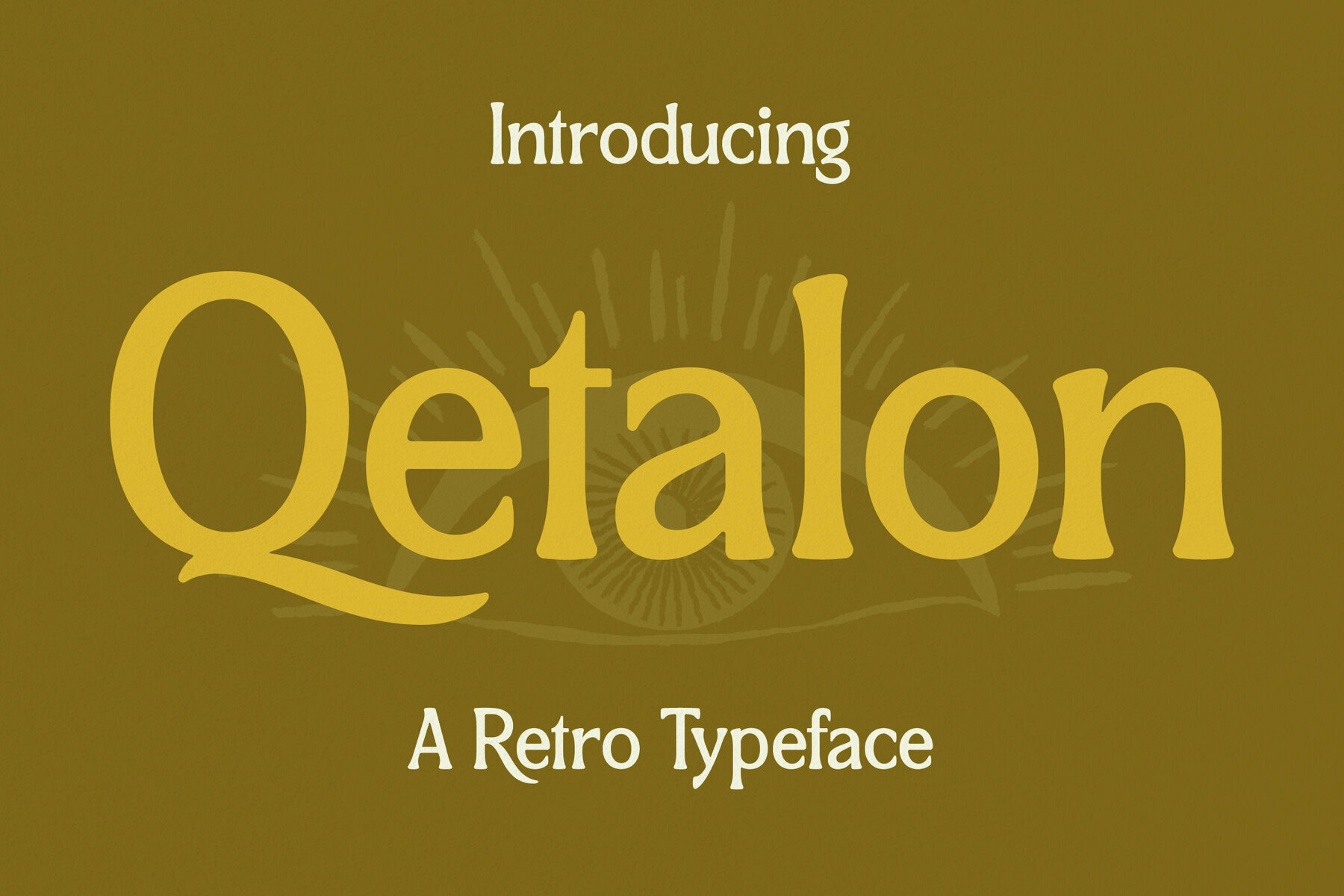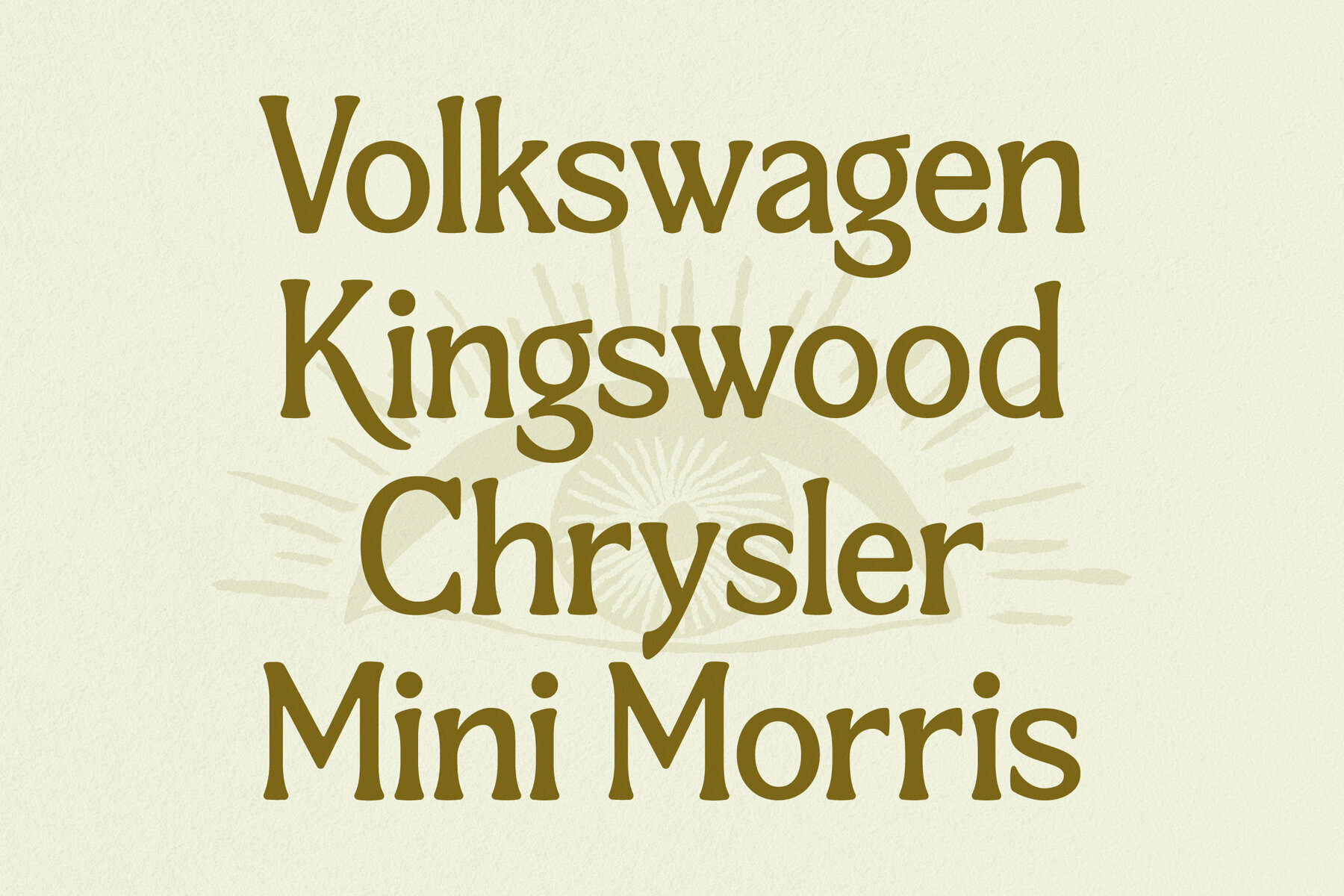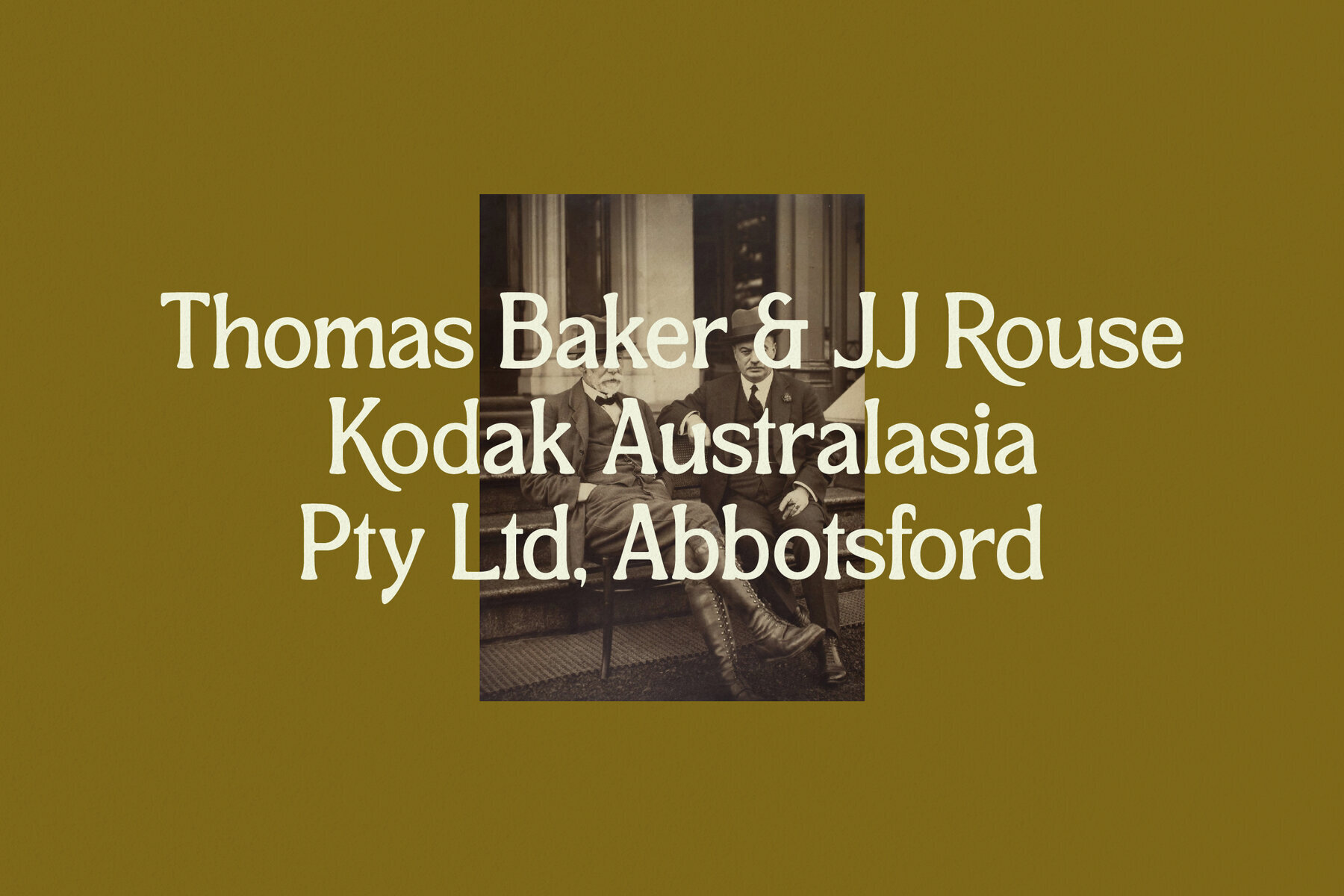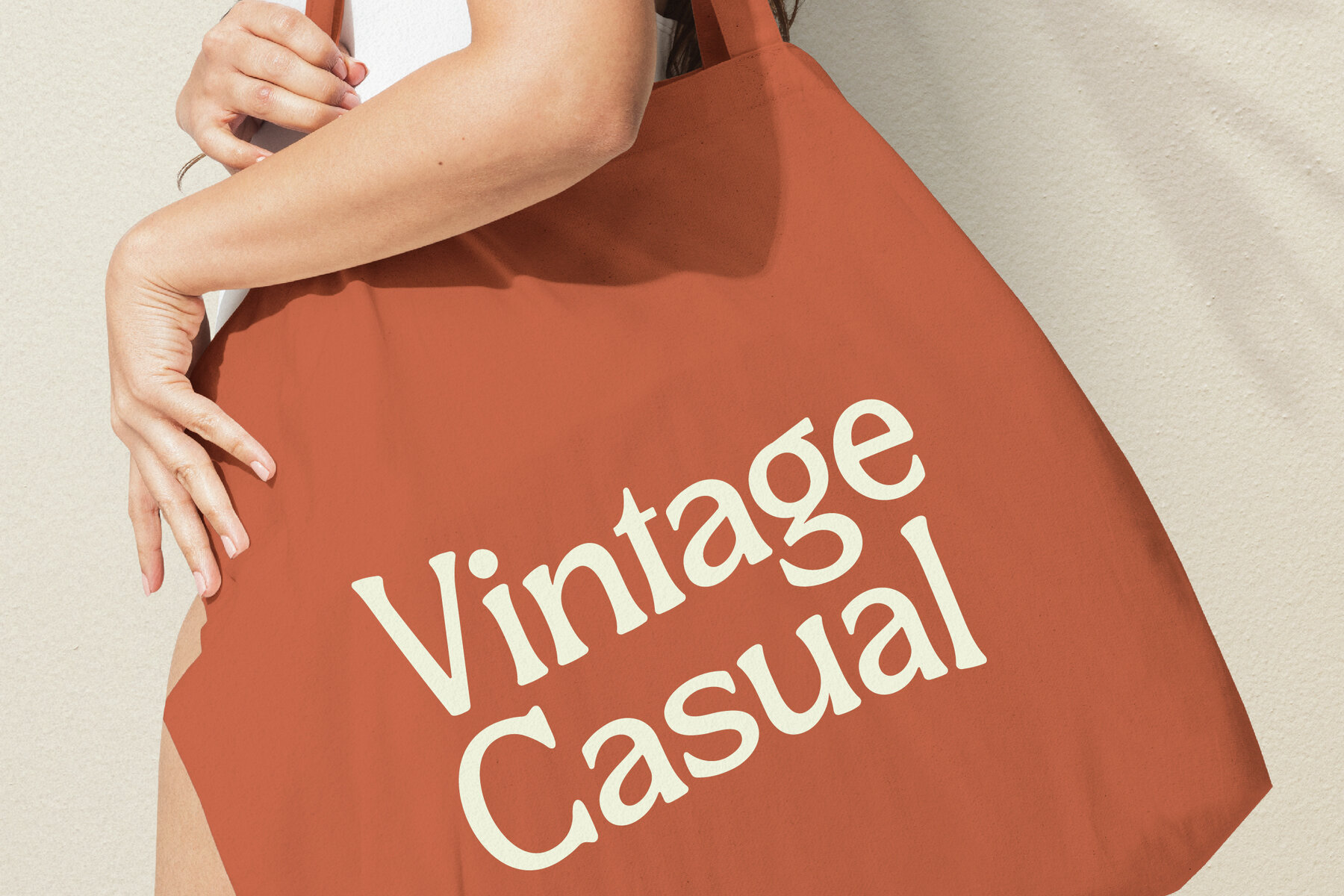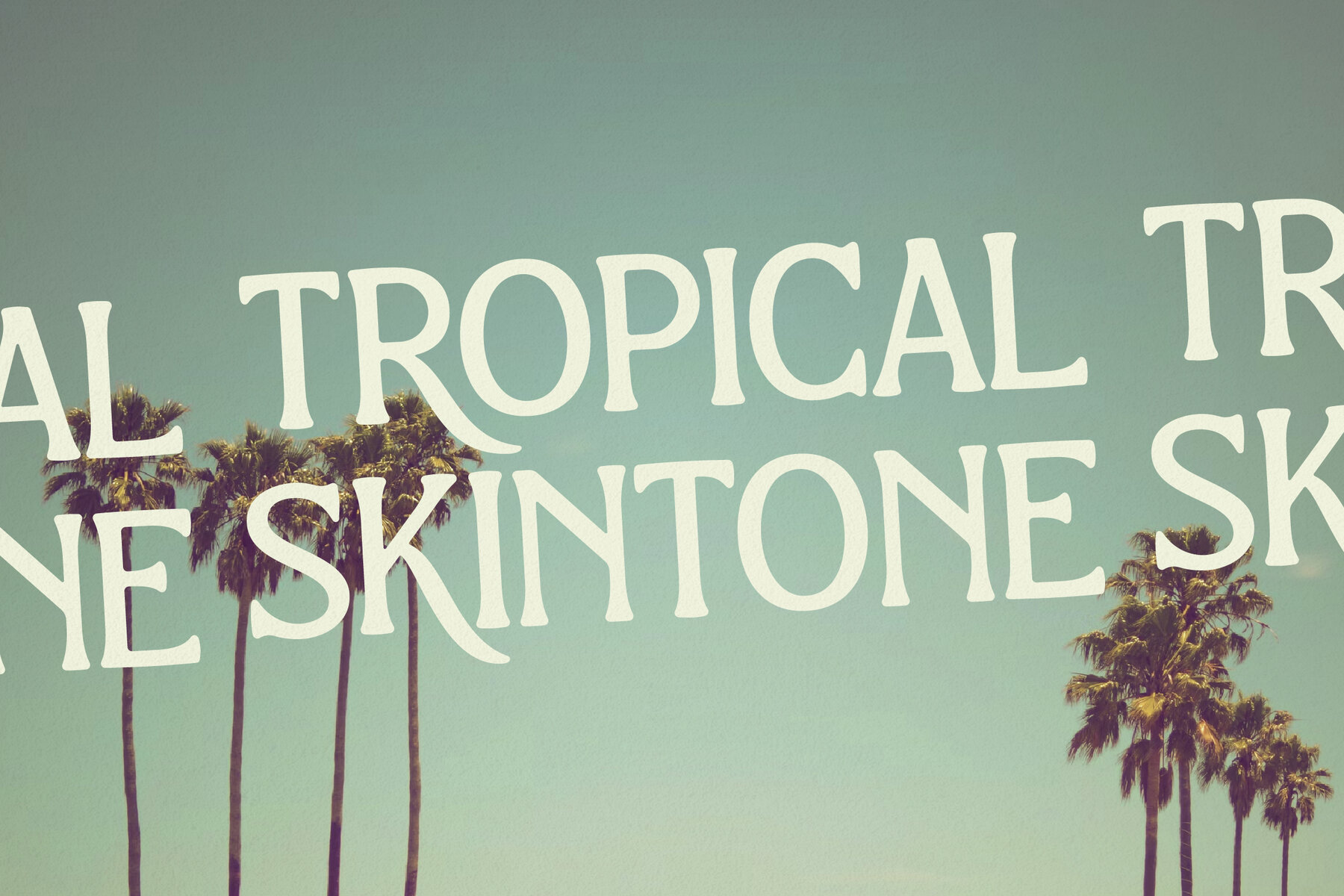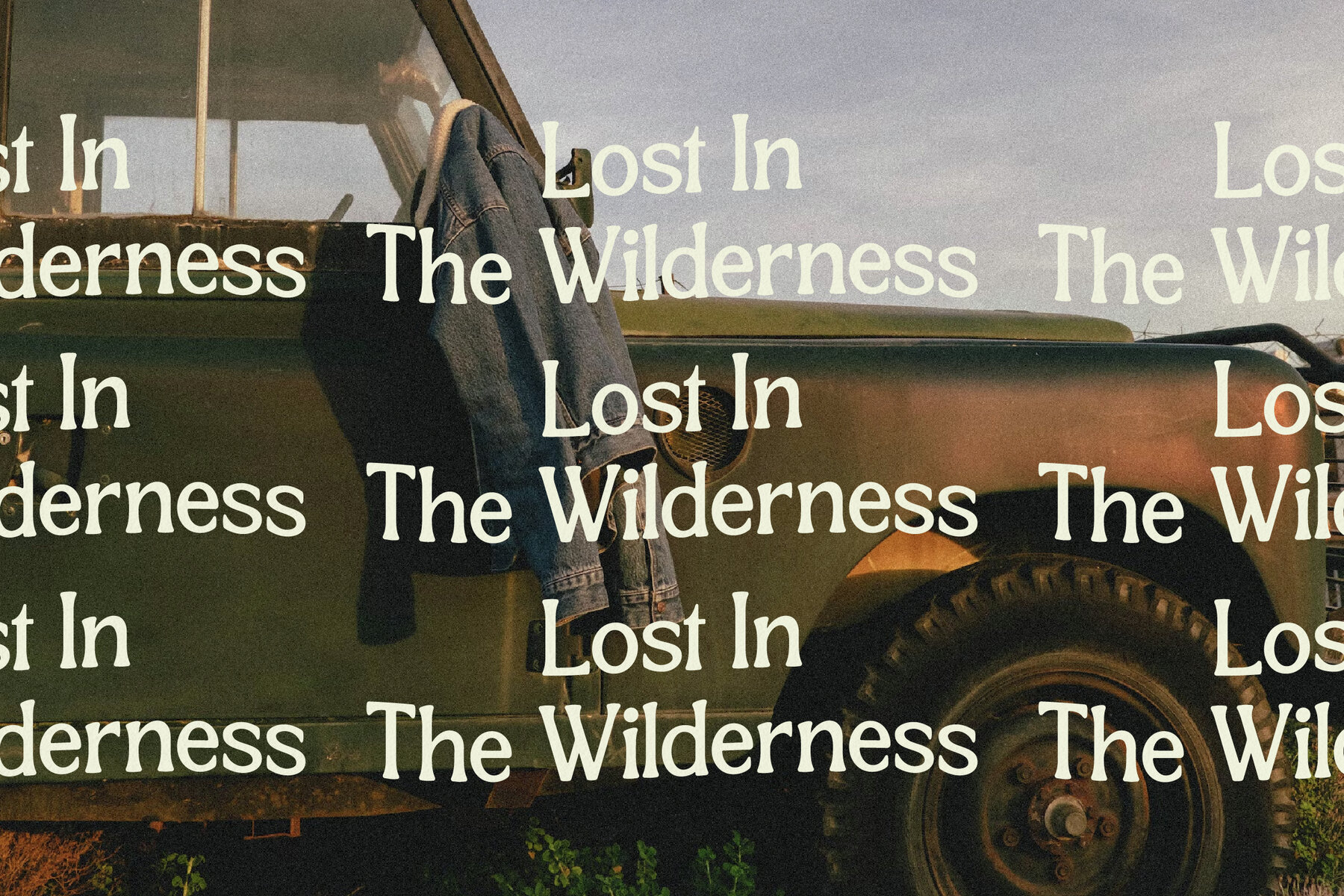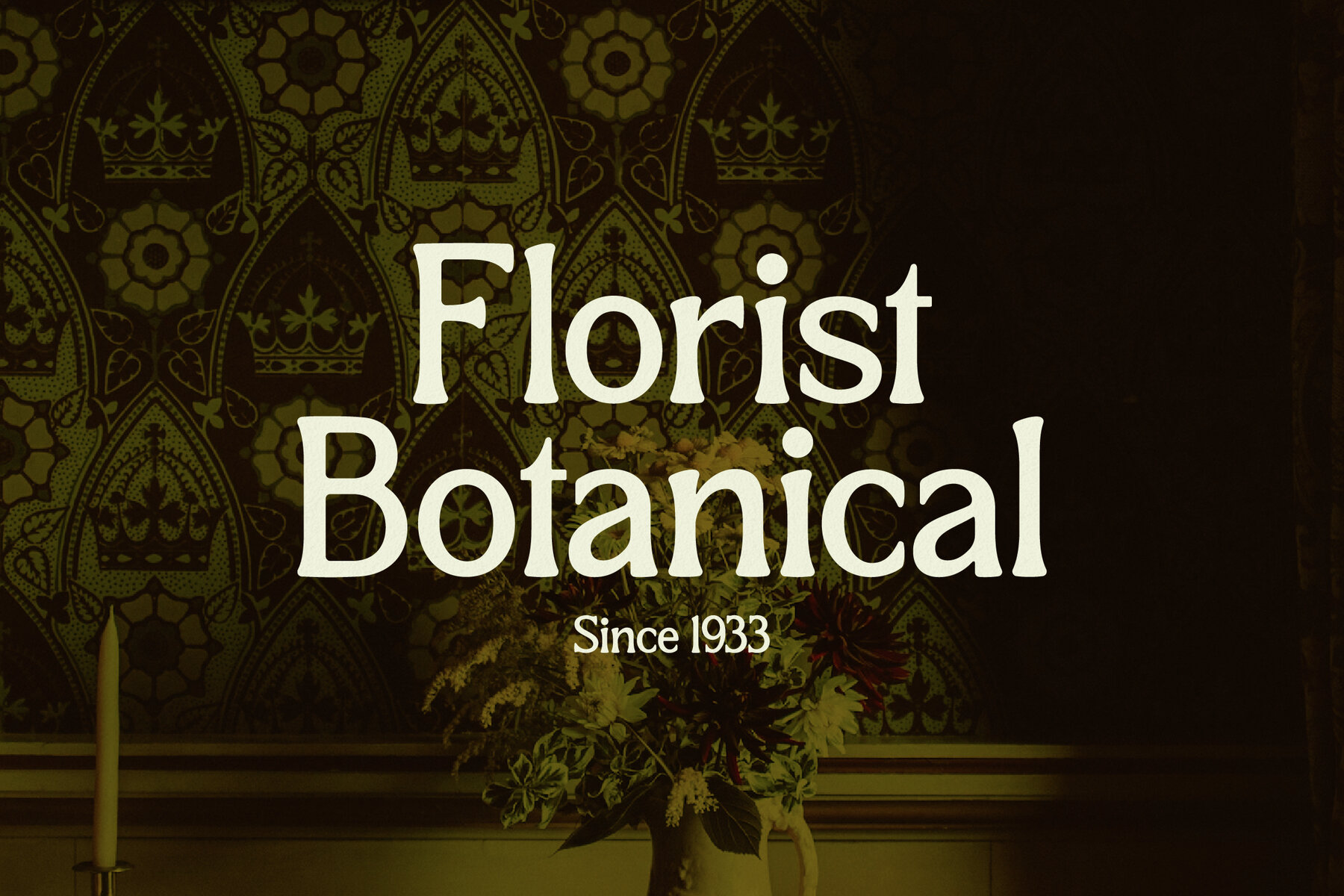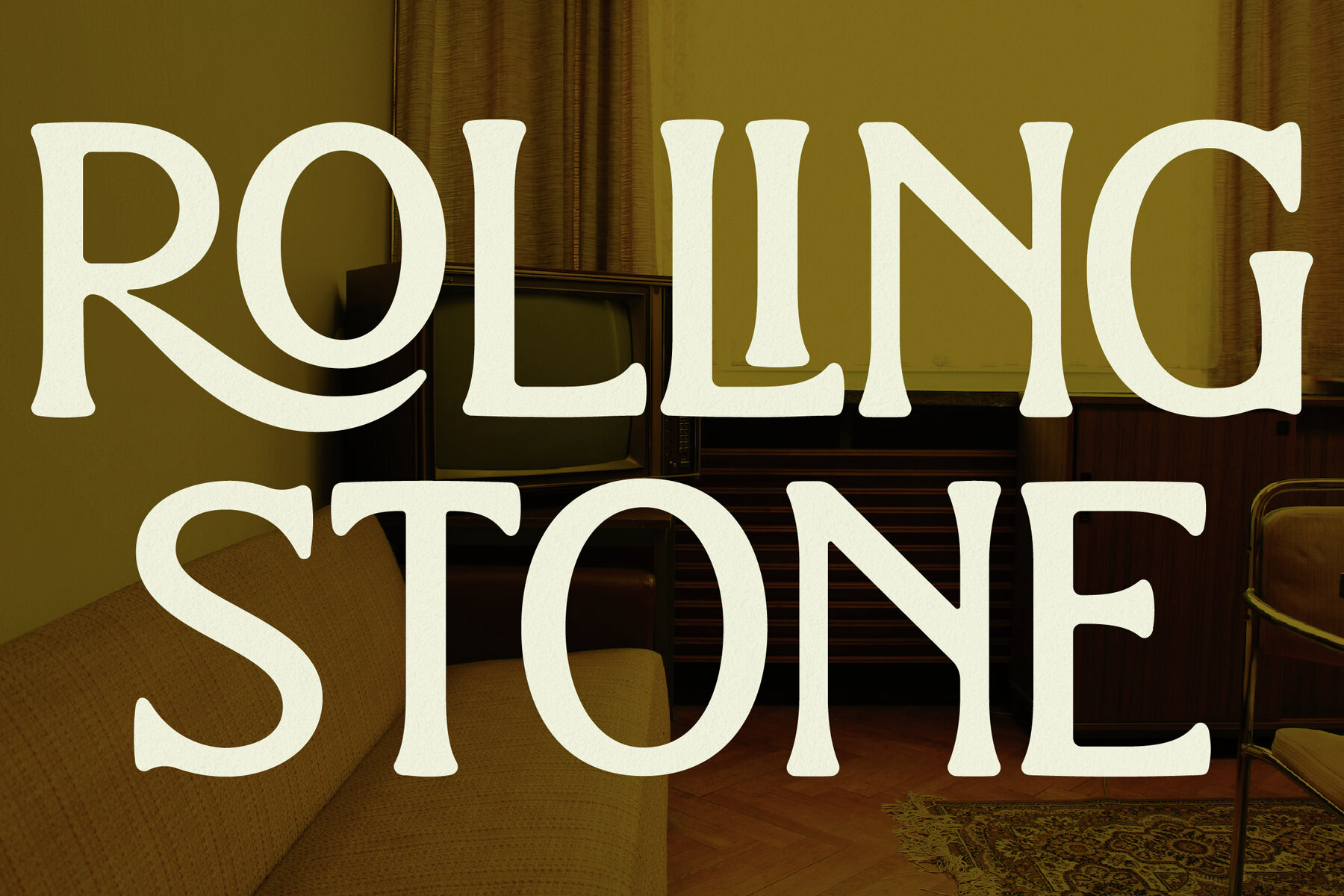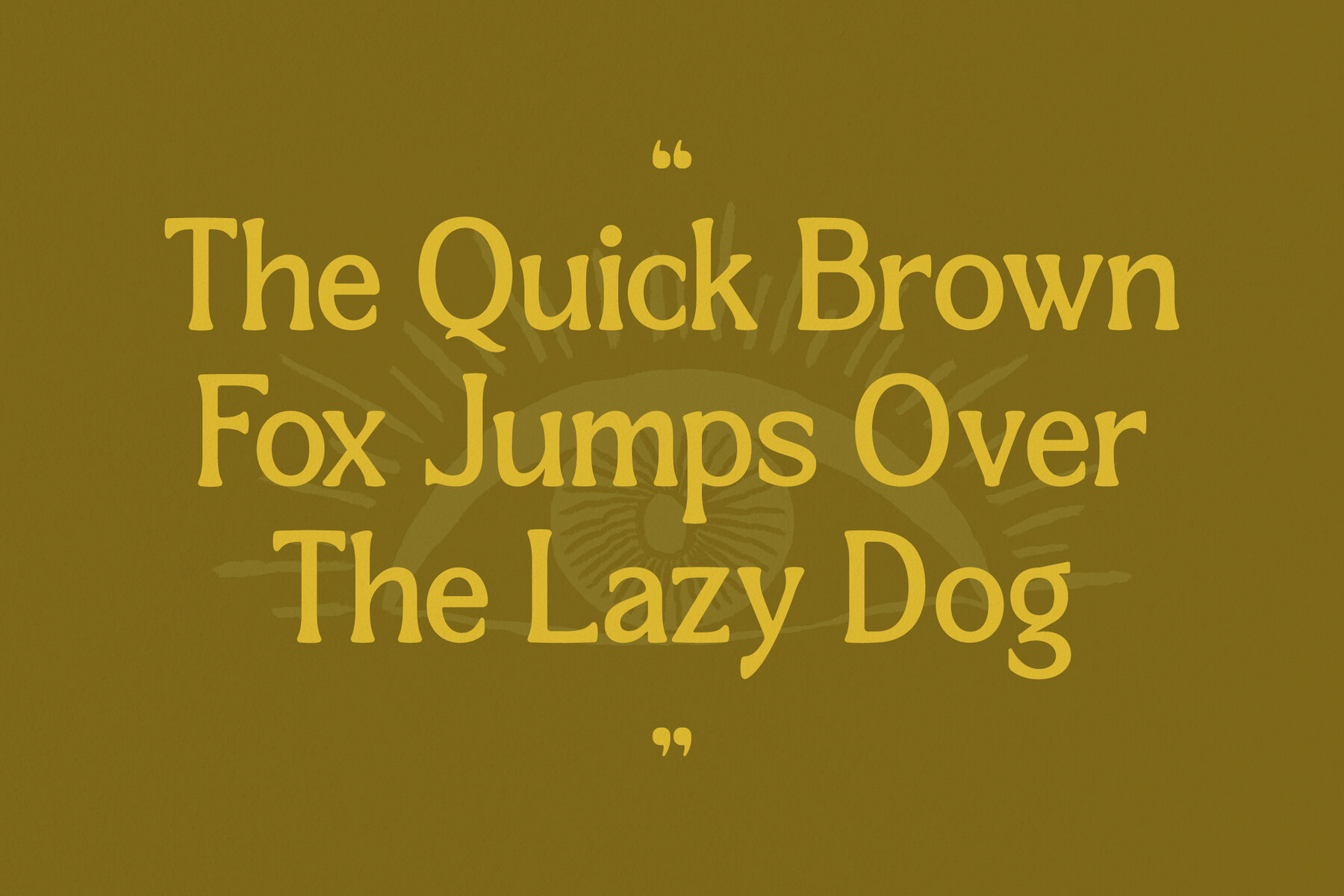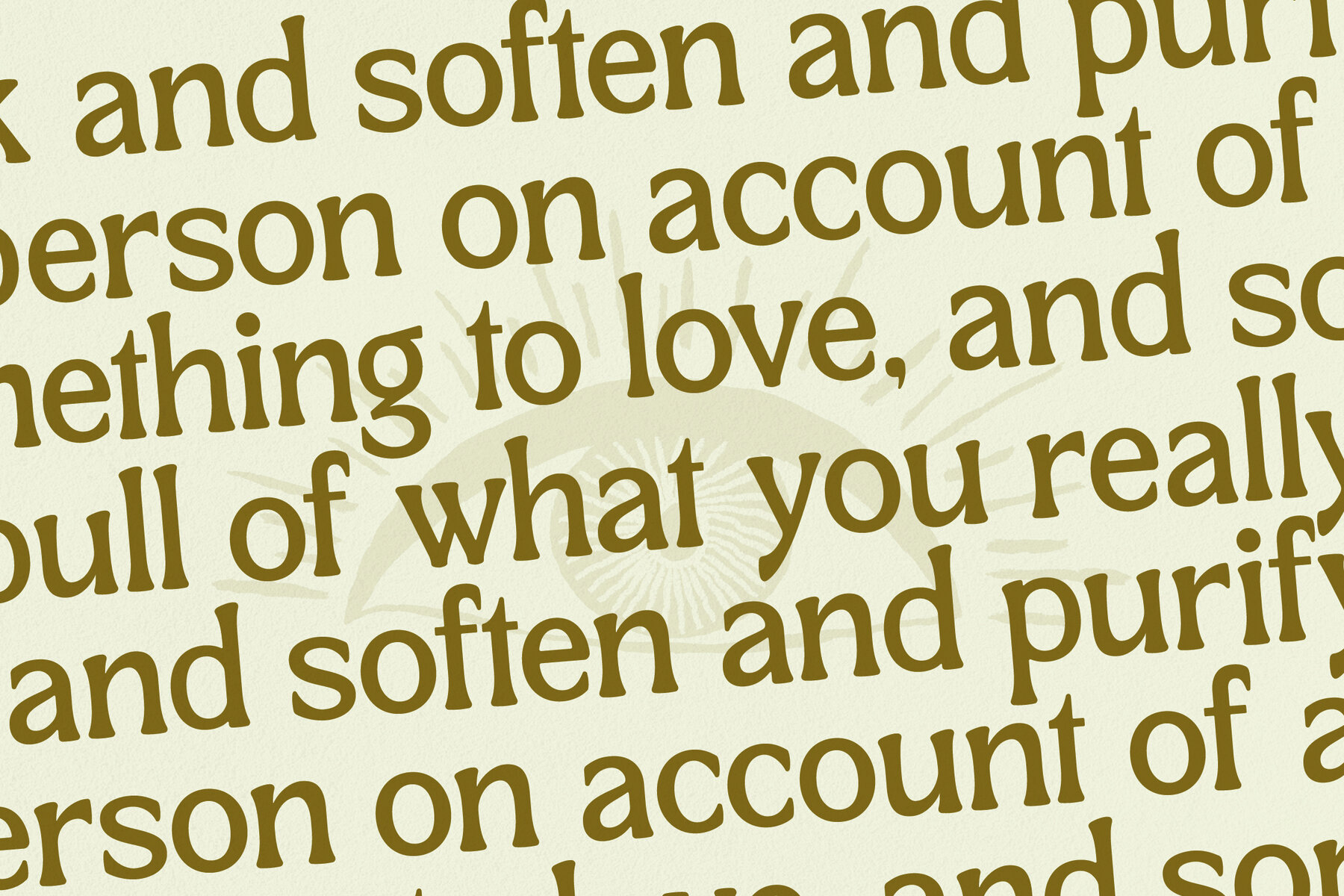
Qetalon Font
Introducing the Qetalon Typeface, a remarkable creation by Storytype Studio. This modern serif design combines timeless elegance with a distinct style, offering an ideal choice for creating luxury logos, book and movie titles, fashion brands, magazines, clothing lines, and sophisticated lettering or quotes.Qetalon Typeface